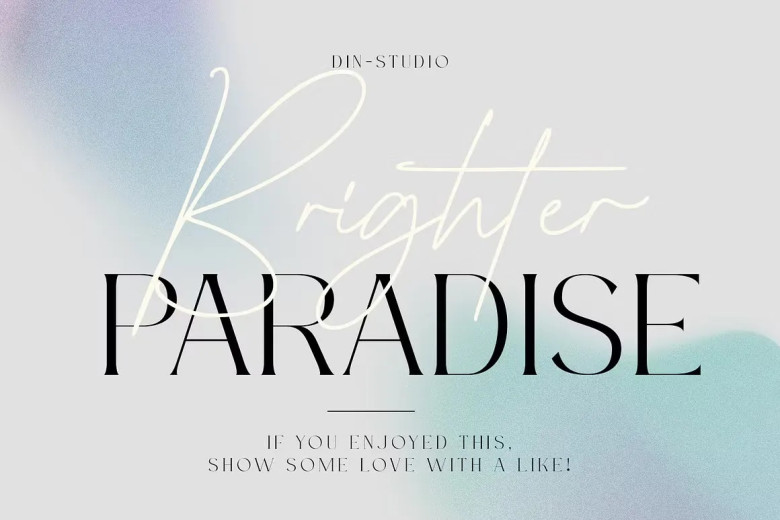
Brighter Paradise Font
Brighter Paradise will put your journey towards elegance off to an impressive start with its beautiful font duo that blends sophisticated serif design with refined script. Created to evoke feelings of warmth and luxury, this font pair makes an excellent choice for projects requiring elegant accents! In particular, its serif font stands out with uppercase letters featuring distinct serifs!
Each letter in this font was specifically created to bring out elegance and class, making it the ideal way to convey traditional elegance. Furthermore, this serif font can also work seamlessly with script fonts which mimic handwriting through fluid strokes and curves that mimic handwriting scribblings.
Brighter Paradise’s script font adds character and warmth to designs while striking an ideal balance between modern and traditional aesthetics. When combined, these two fonts produce an aesthetically pleasing combination that allows designers to seamlessly mix traditional elegance with contemporary aesthetics – you’ll be impressed by all its attributes!
Brighter Paradise Font Duo